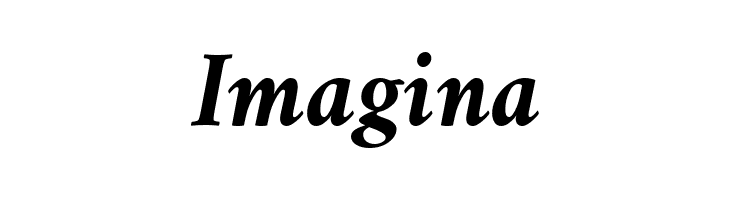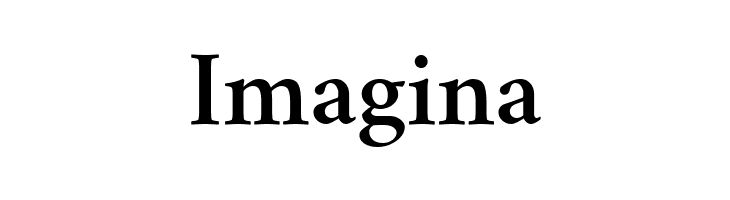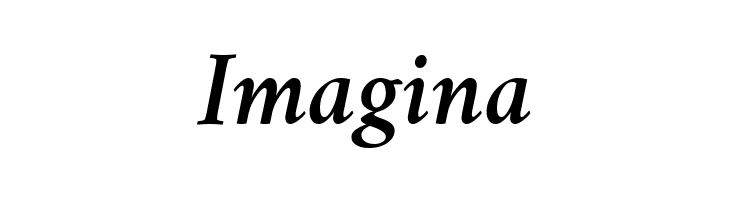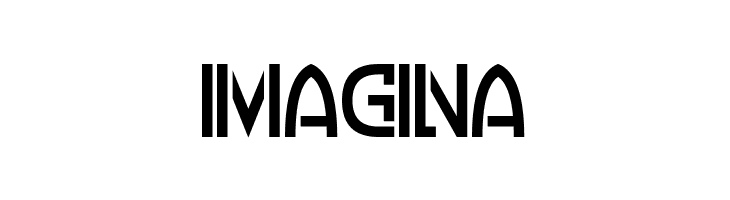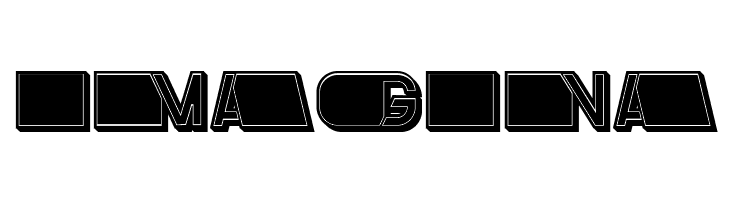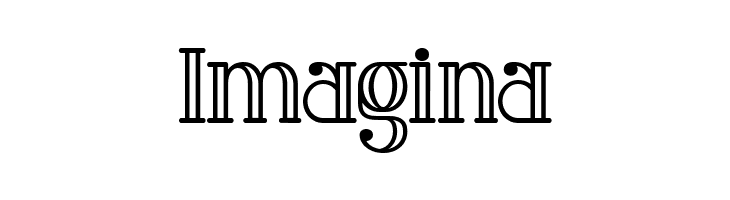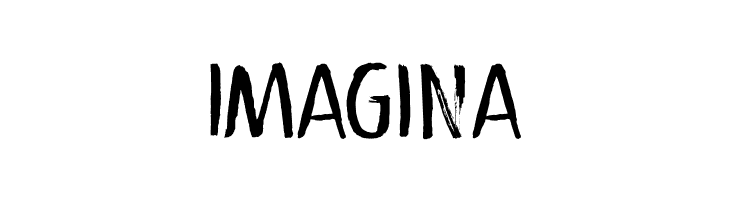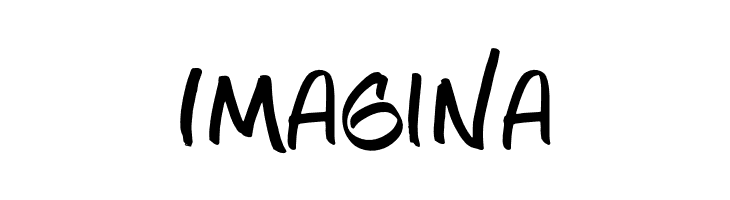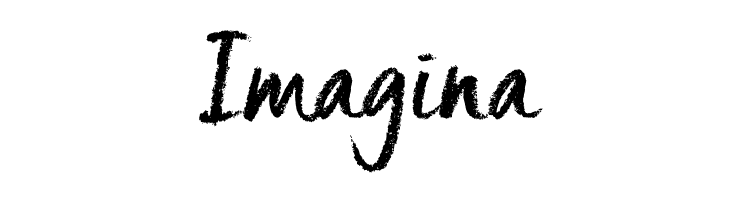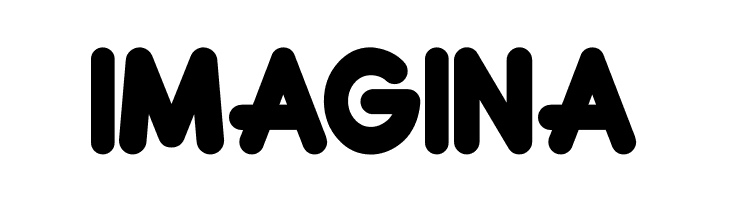
A dynamic, brush-style handwritten font with expressive strokes.
A textured, brush-style handwritten font with a dynamic and artistic appearance.
An ornate and bold font with intricate swirls and angular lowercase letters.
A bold, geometric stencil font with sharp, angular edges and consistent line thickness.
A bold, rounded font with a playful and friendly style.
A bold, futuristic font with a stencil-like, geometric design.
A bold, italicized font with a futuristic and angular design.
A modern, geometric font with tall, narrow characters and a futuristic style.
A bold, geometric font with Art Deco influences and sharp, clean lines.
A bold, geometric font with art deco influences and a condensed, vertical style.
A bold, geometric font with an art deco influence, perfect for striking visual designs.
A bold, italicized font with a dynamic, futuristic style.
A modern, italic font with sharp angles and a dynamic, forward-leaning style.
A bold, italic font with a modern, angular design.
A bold, textured font with a vintage, hand-drawn style.
A bold, playful script font with smooth, flowing curves.
A bold, hand-drawn font with a textured, artistic style.
A bold, geometric font with hollow interiors and a modern, digital aesthetic.
A bold, geometric font with a three-dimensional effect and industrial style.
A dramatic, gothic-style font with sharp, jagged edges and a distressed look.
A bold, classic serif typeface with high contrast and elegant serifs.
A bold, italic serif font with a classic and elegant style.
A lively, flowing script font with elegant, cursive letterforms and a handwritten feel.
A playful, rounded font with smooth curves and a friendly appearance.
An elegant, flowing script font with a sophisticated, handwritten style.
An elegant, flowing script font with a natural handwriting style.
Elegant serif font with a classic italic slant and moderate contrast.
A classic serif font with elegant strokes and refined proportions.
A classic serif font with semi-bold weight, offering elegance and readability.
A semi-bold, italic serif font with a classic and elegant style.
A bold, brush-style font with an energetic and artistic feel.
A bold, handwritten font with dynamic brush strokes and expressive letterforms.
An elegant, cursive handwritten font with smooth, flowing strokes.
A decorative serif font with elegant, rounded terminals and a classic-modern blend.